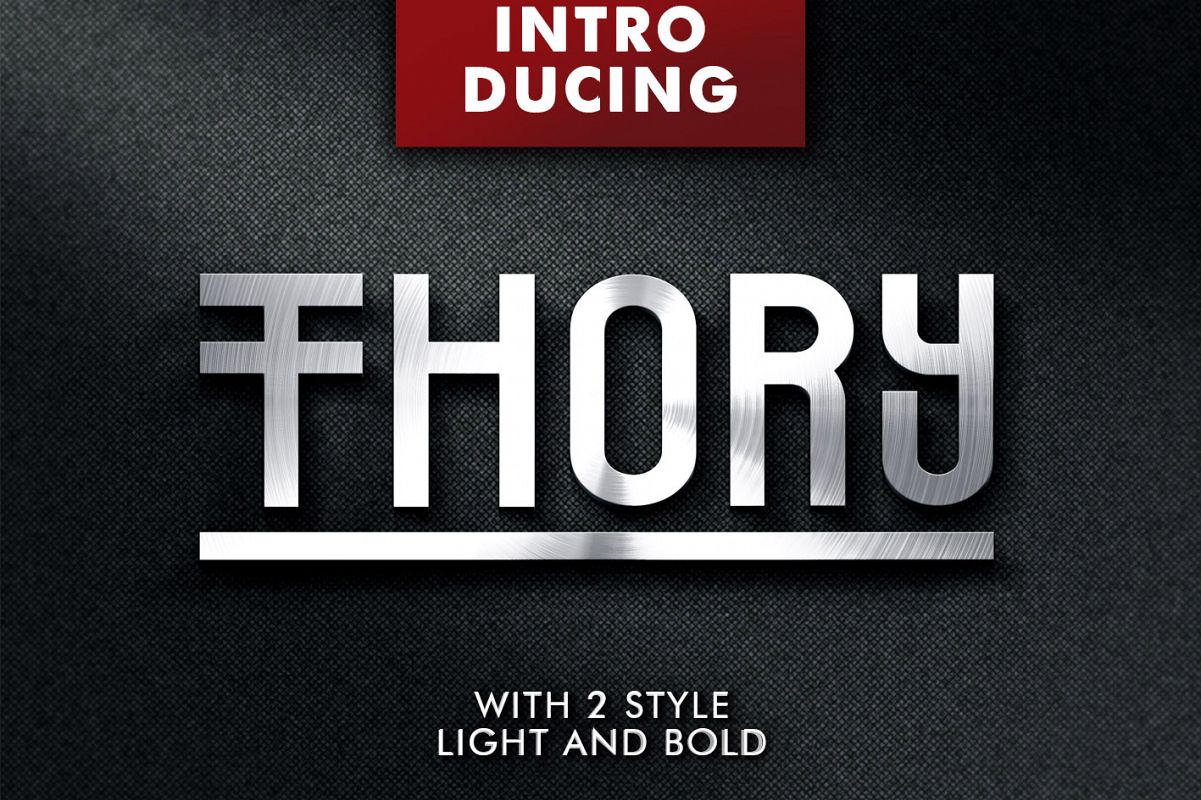
Thory typeface has awesome character with 2 different styles, regular & light. Thory typeface is perfect for namecards, posters, logos, magazines, covers, banners, tshirts and headers, or even large-scale artwork.